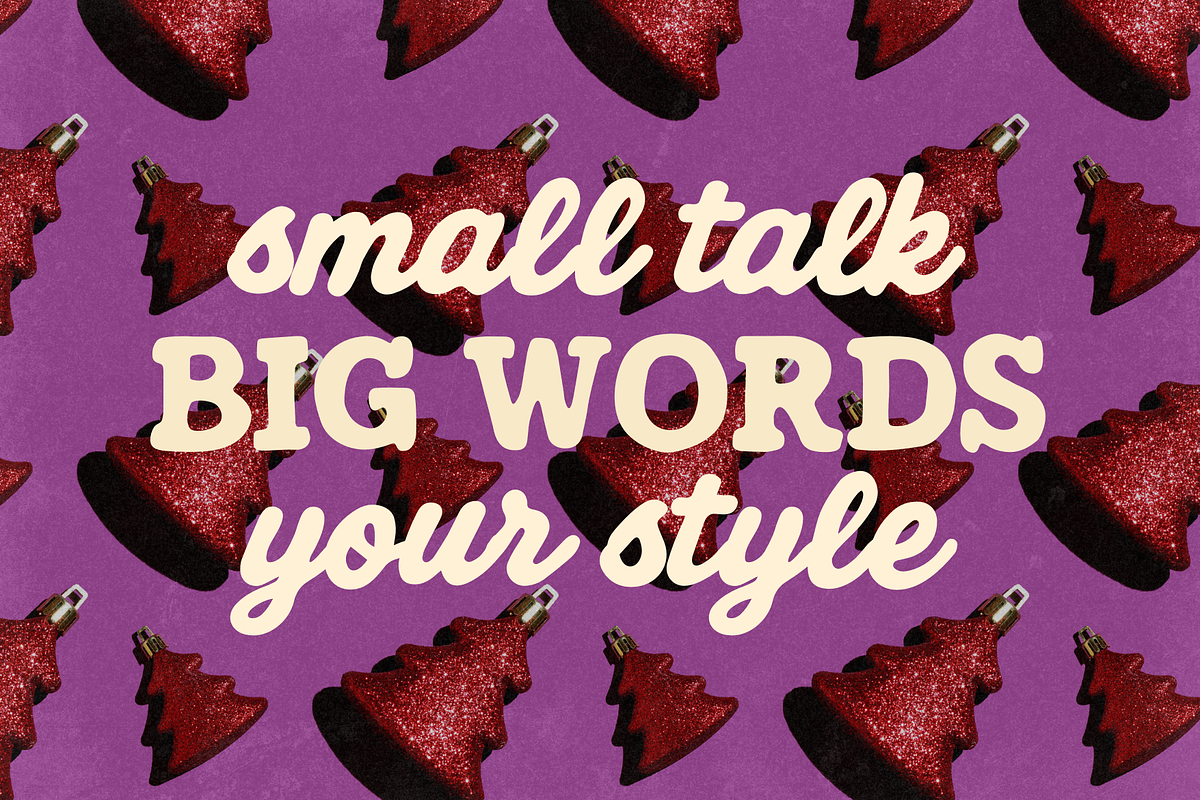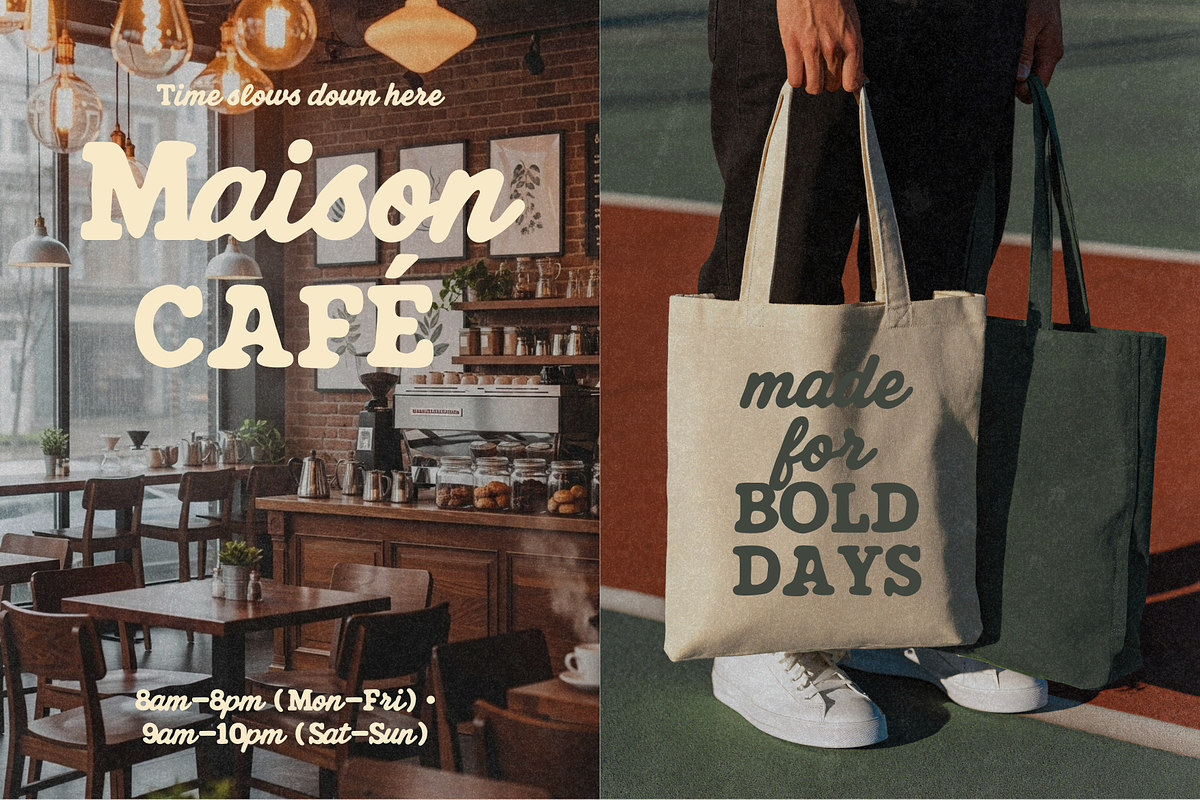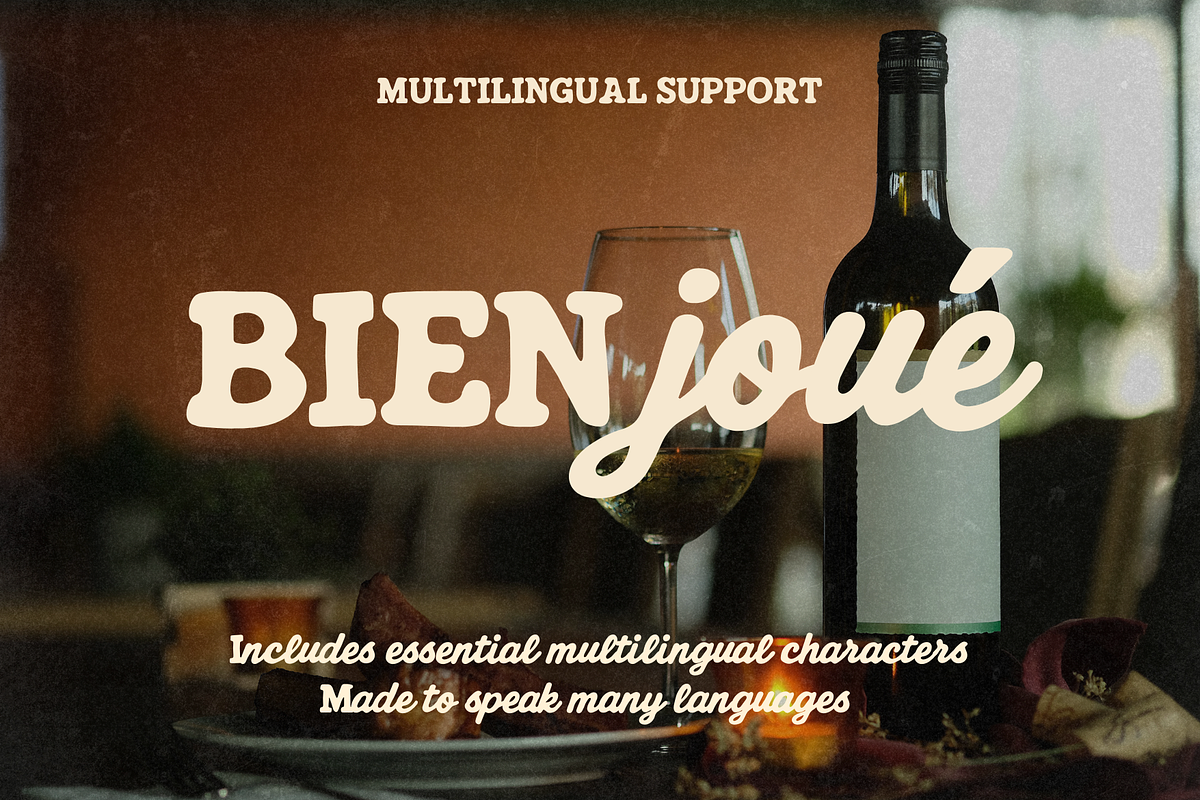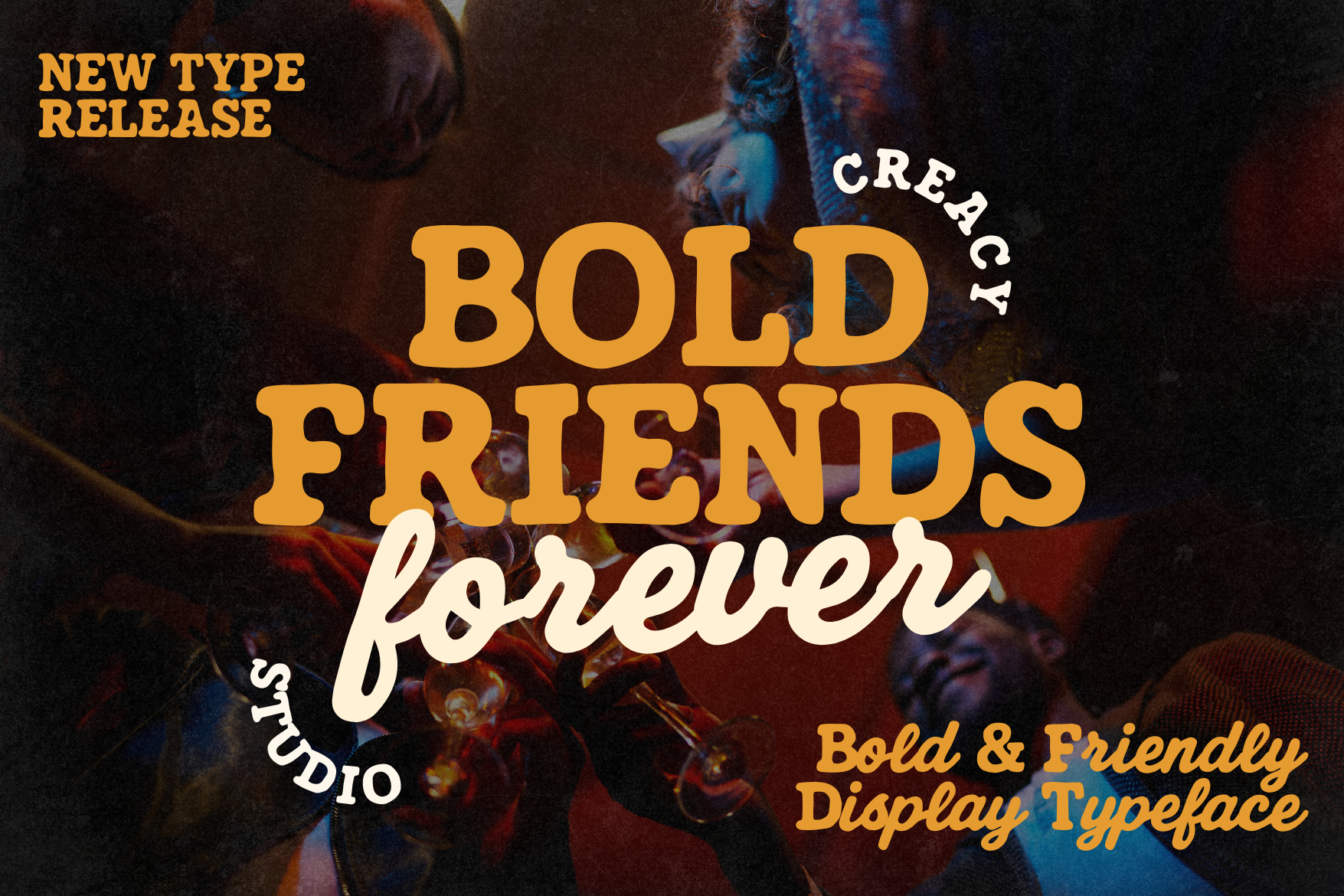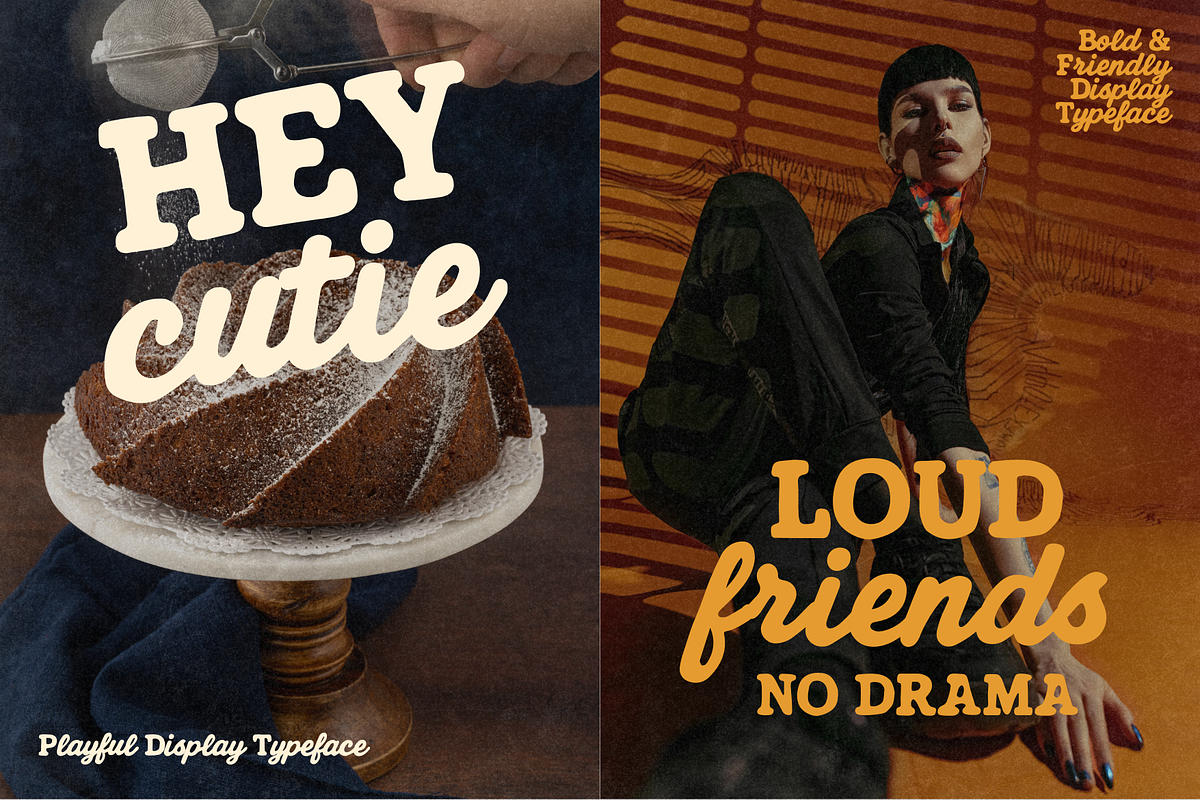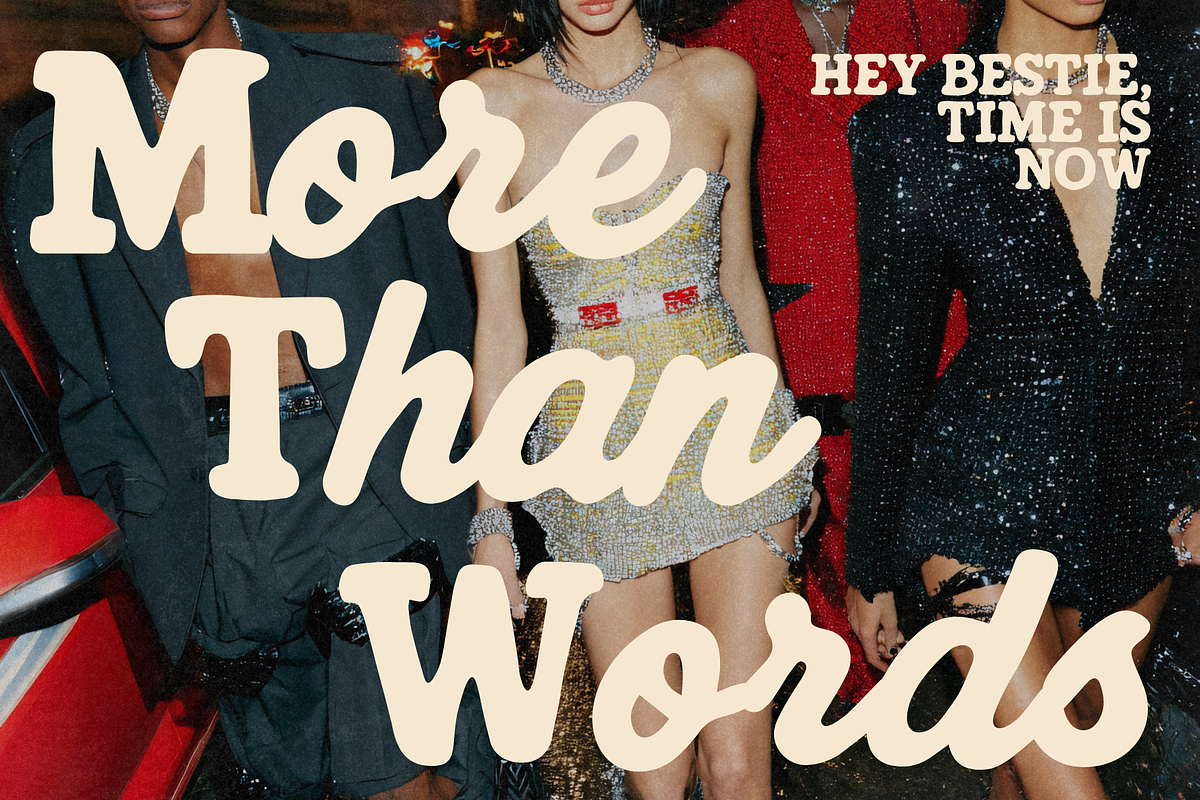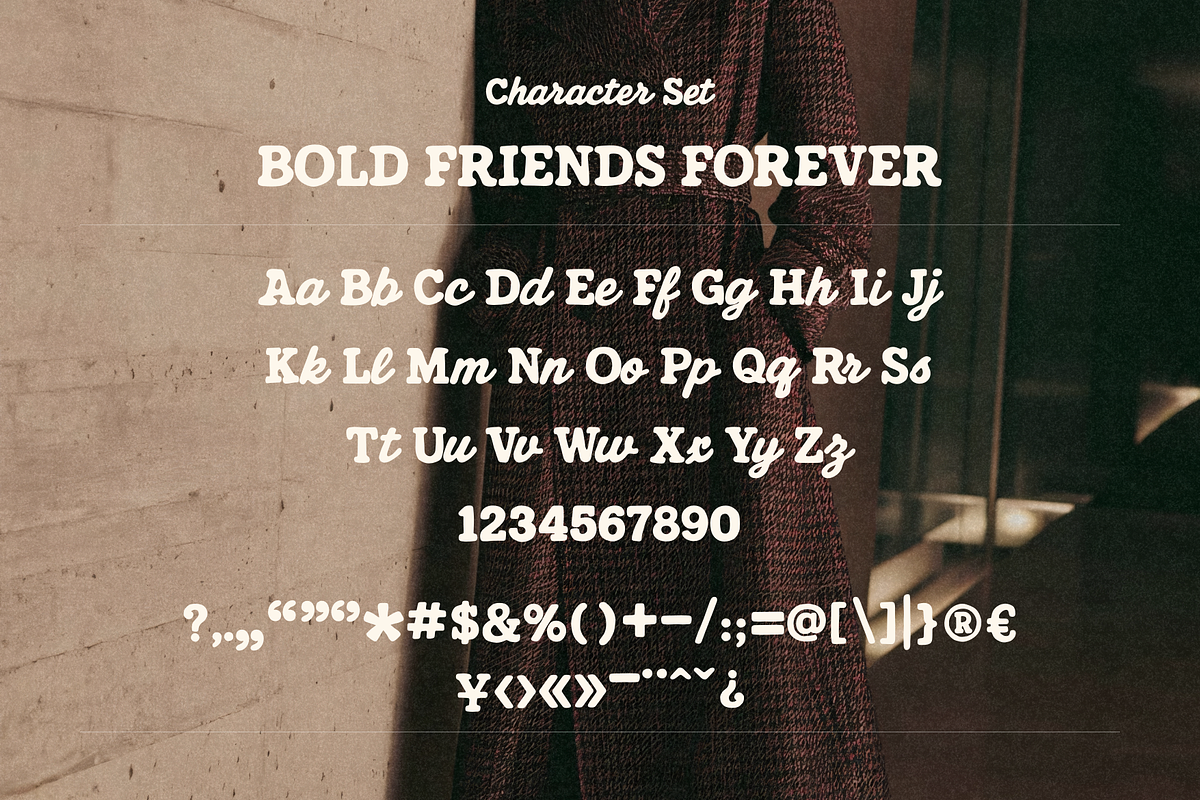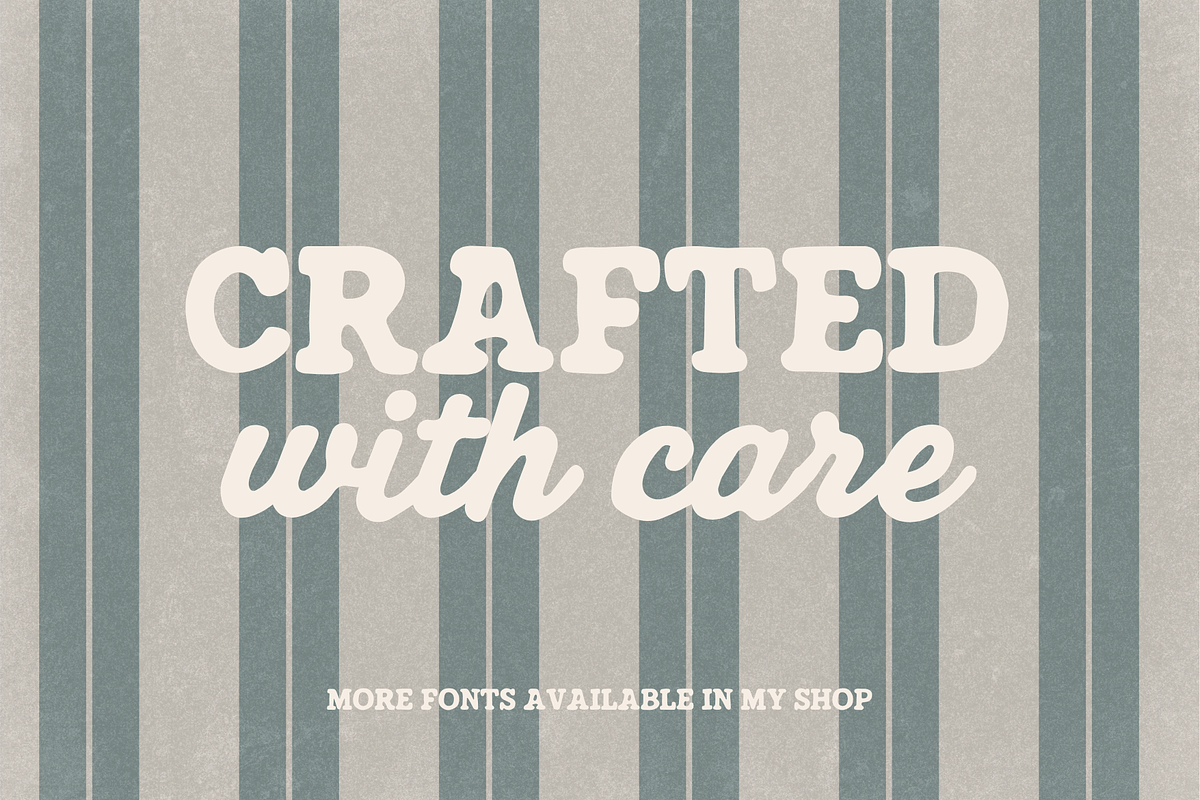
Bold Friends Forever Playful Font
Bold Friends Forever – Bold & Friendly Display Typeface
Bold Friends Forever is a bold, friendly display typeface designed to celebrate connection, confidence, and playful expression. Inspired by vintage typography and modern lifestyle visuals, this typeface blends chunky serif forms with smooth handwritten script styles to create a warm and expressive personality.
Built for statement-making designs, Bold Friends Forever brings a loud-but-friendly voice—perfect for brands that want to feel human, fun, and unforgettable.
✦ Why Bold Friends Forever?
- Bold, friendly, and playful character
- Vintage-inspired display style with modern energy
- Strong serif paired with expressive script
- Instantly eye-catching and easy to read
- Designed for joyful, lifestyle-driven visuals
✦ Perfect For
- Branding & logo design
- Fashion & lifestyle projects
- Café, restaurant, and creative studios
- Posters, editorials & headlines
- Packaging & merchandise
- Social media, ads & marketing content
✦ Features
- Numerals and punctuation
- Essential multilingual support
- Clean and balanced display forms
- Optimized for both print and digital use
✦ Multilingual Support
Bold Friends Forever includes essential multilingual characters, making it suitable for international projects and diverse audiences.
✦ Typeface Personality
Bold • Friendly • Playful • Vintage • Expressive • Display